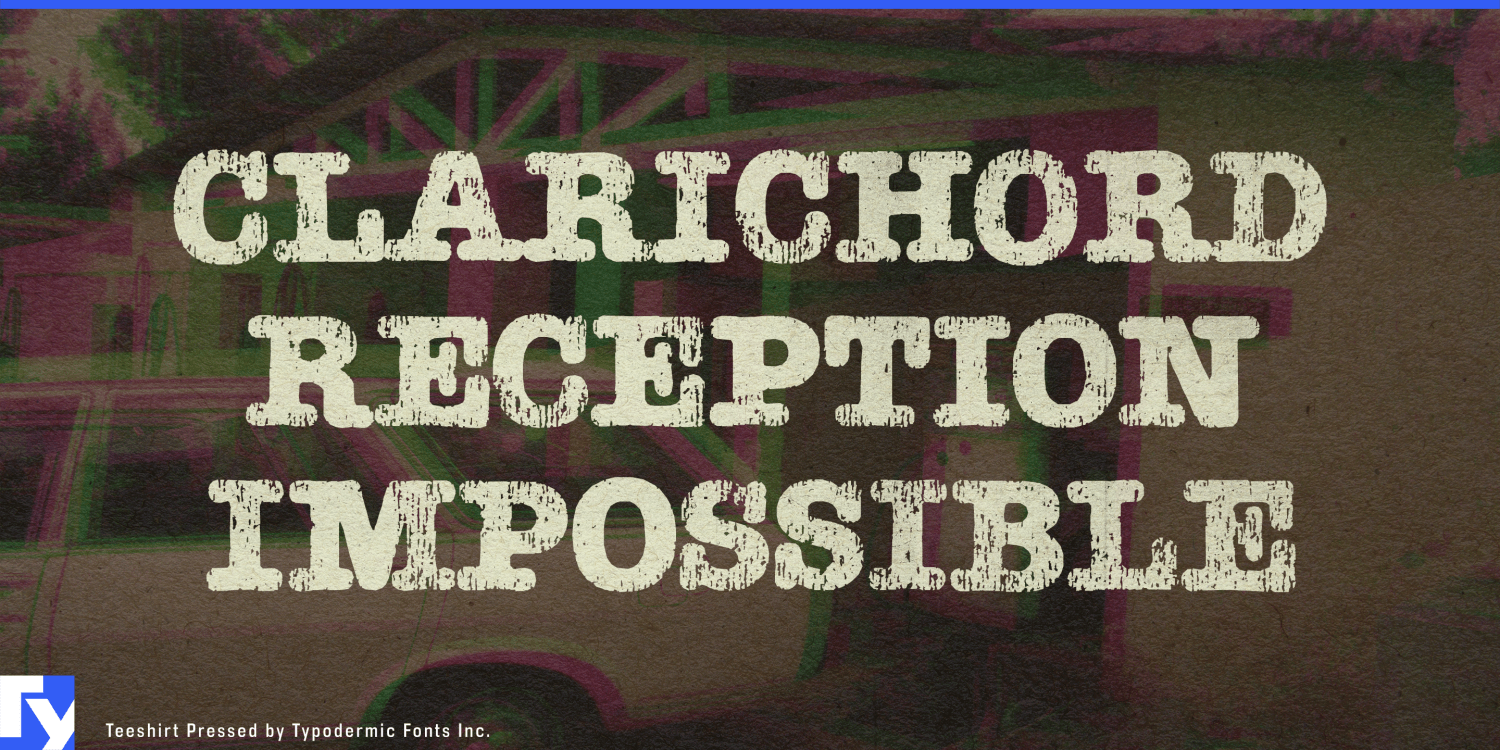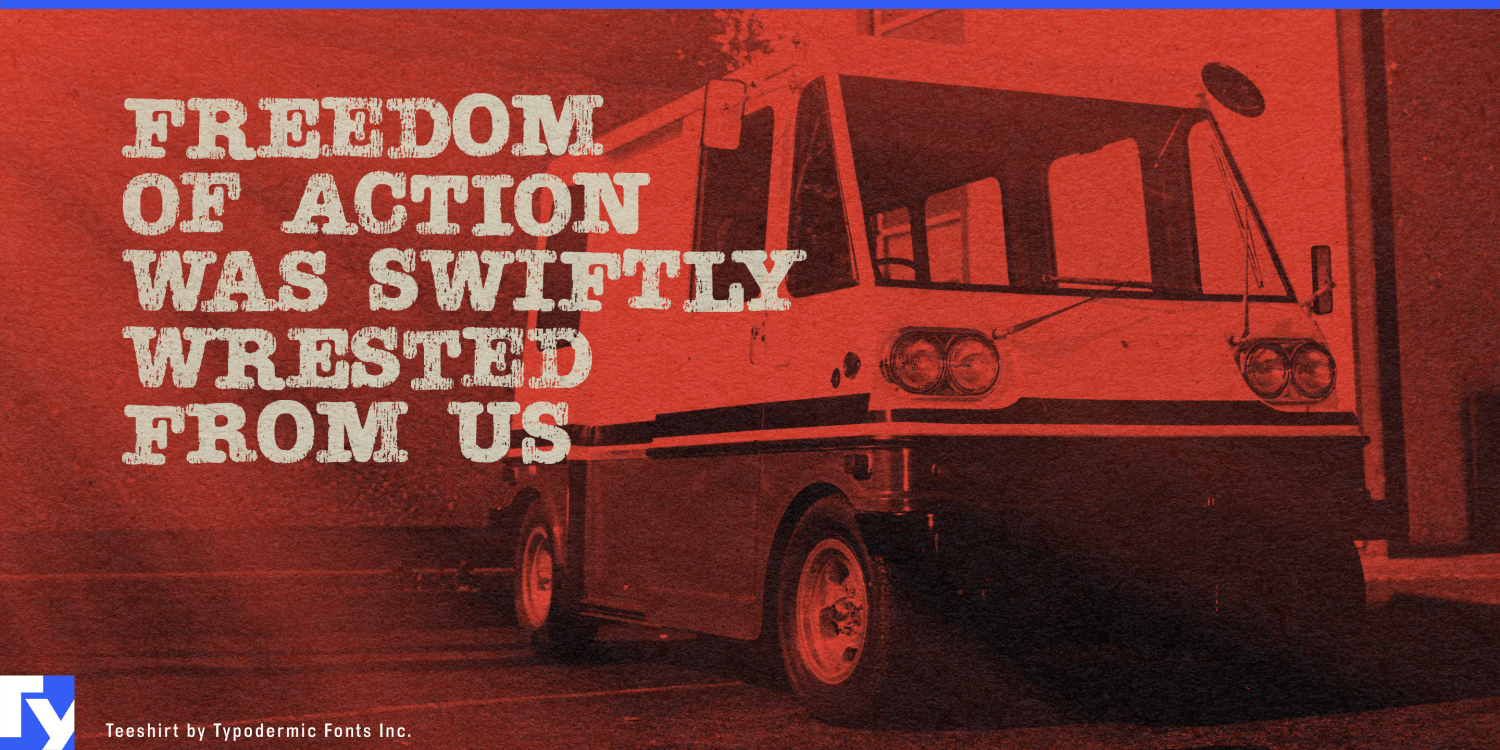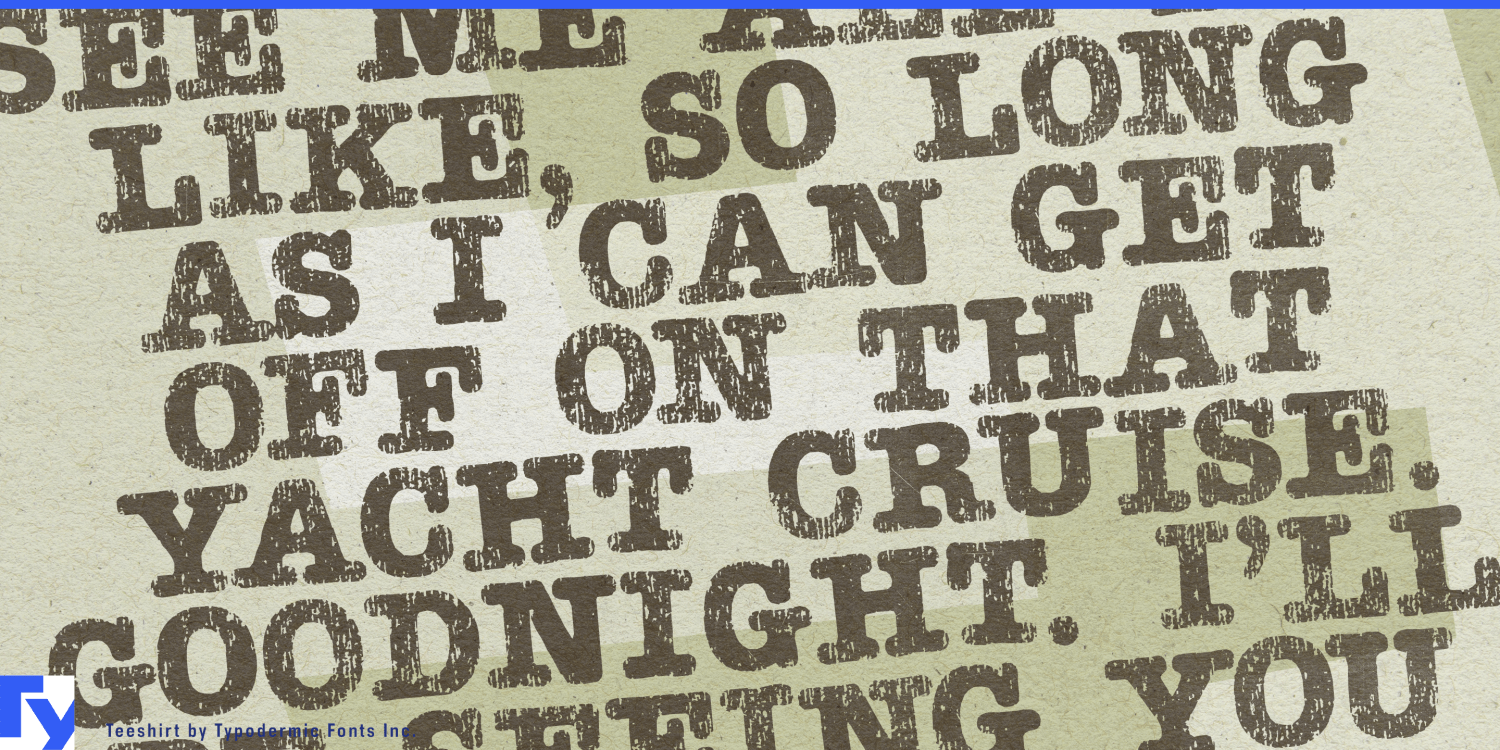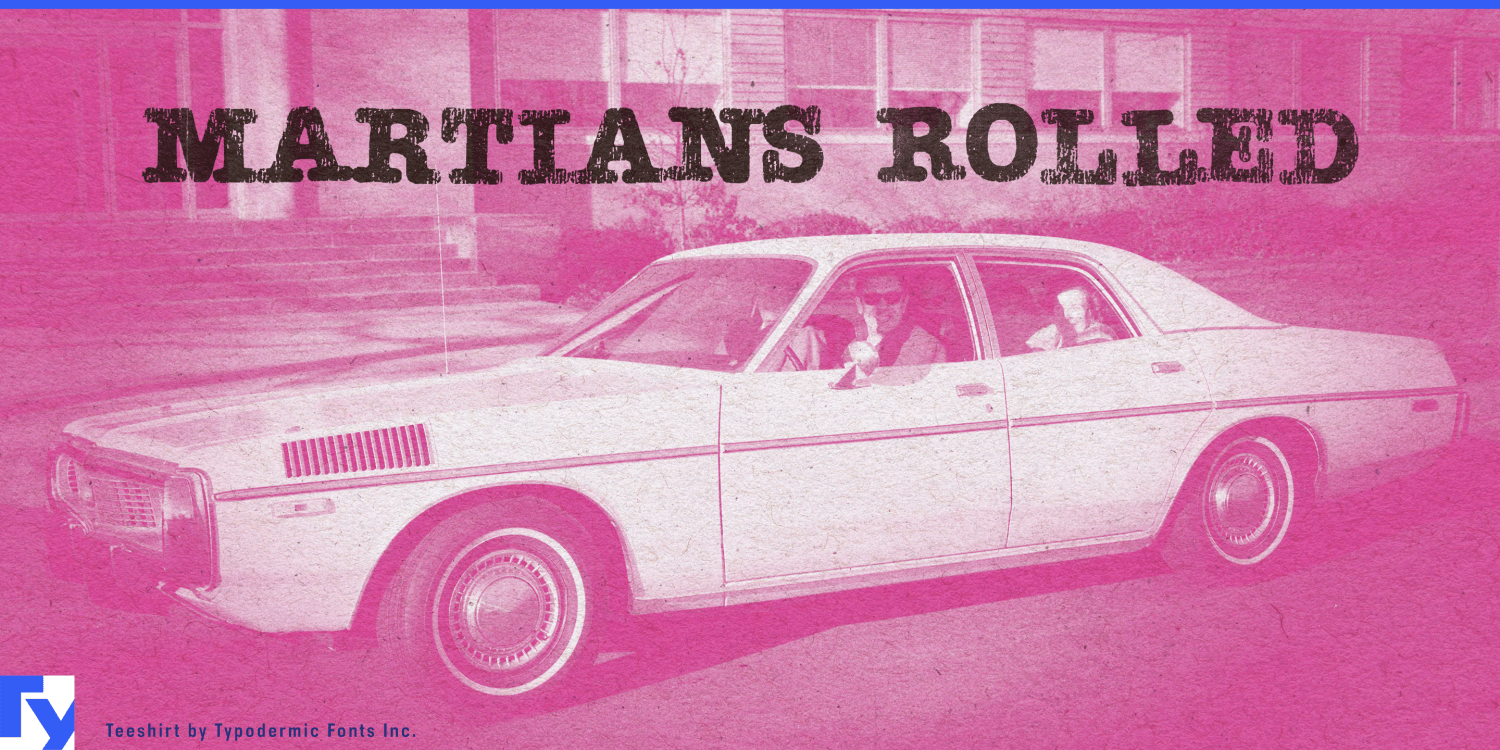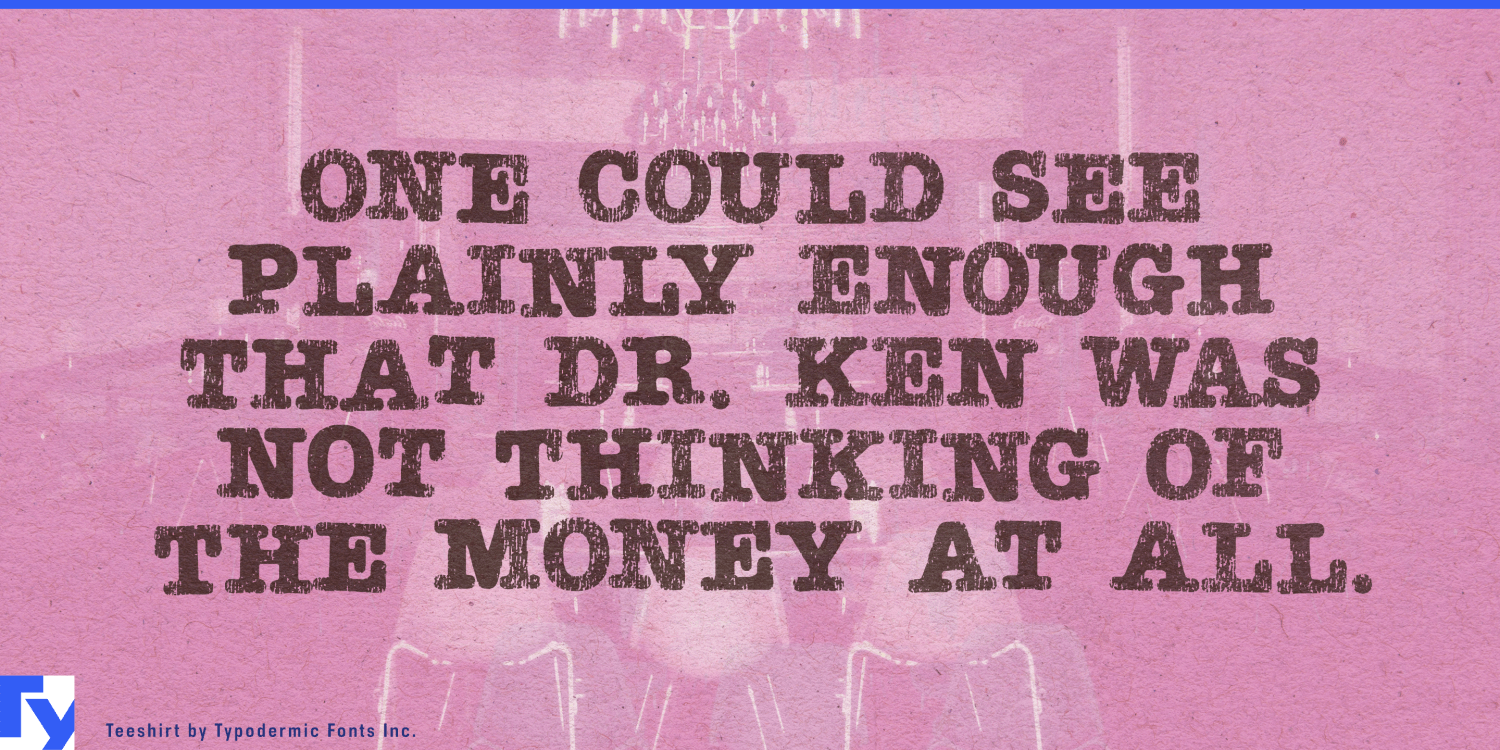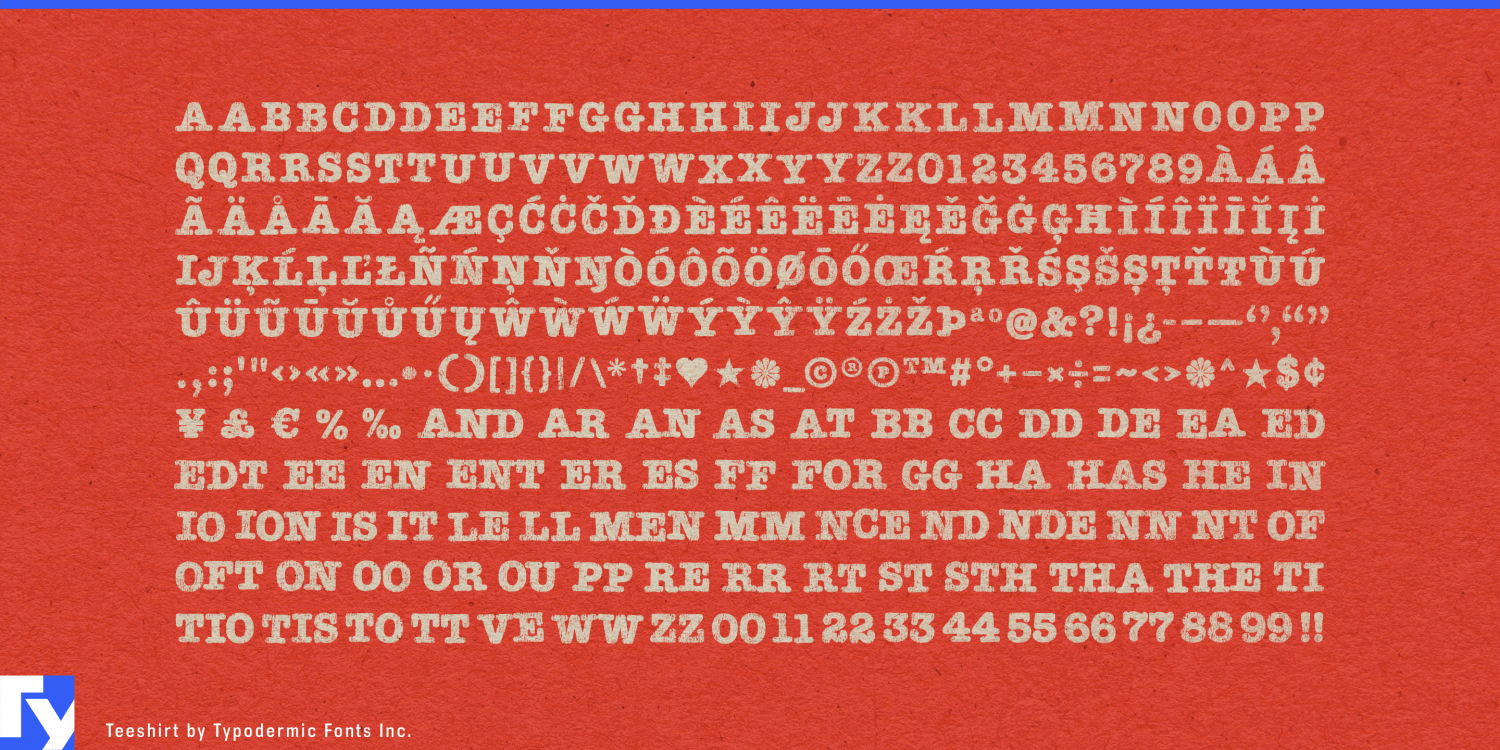
About Teeshirt
Hey, typography enthusiasts—kick back and relax because Teeshirt is here to bring that effortlessly cool, vintage vibe to your designs. Inspired by the iconic American Typewriter font that dominated the ’70s and ’80s, Teeshirt captures…